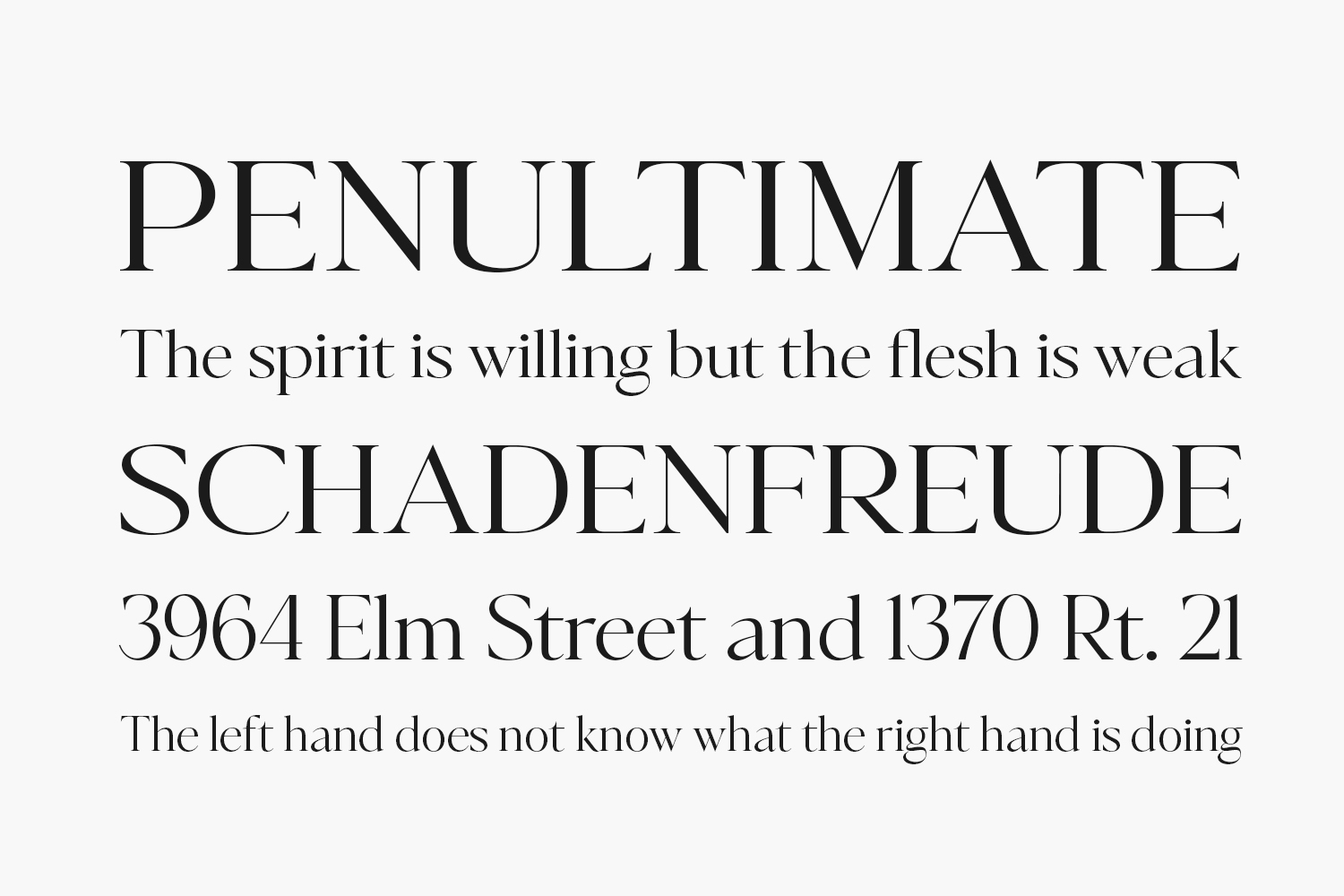
British Green is a sophisticated serif font designed with clean lines and subtle contrast, making it perfect for elegant branding, editorial layouts, and print design. With its timeless style and high readability, this free font is ideal for designers looking to add a touch of class to their projects. Whether you’re working on logos, packaging, or magazine headers, British Green delivers a refined aesthetic that stands out without overpowering your layout.
Why Choose British Green?
- Timeless Style: A classic serif typeface with a modern edge, suitable for both traditional and contemporary designs.
- High Readability: Designed for clarity in body text and headlines across digital and print media.
Where to Use British Green?
- Logos & Branding: Perfect for luxury brands, fashion labels, or boutique identities seeking a classic serif look.
- Editorial Design: Ideal for magazines, newspapers, or book typography where legibility and elegance are key.
- Packaging Design: Adds a premium feel to product labels, food packaging, or artisanal brand materials.
- Print Projects: Great for posters, flyers, greeting cards, and other printed media requiring a polished appearance.
Design Tips with British Green